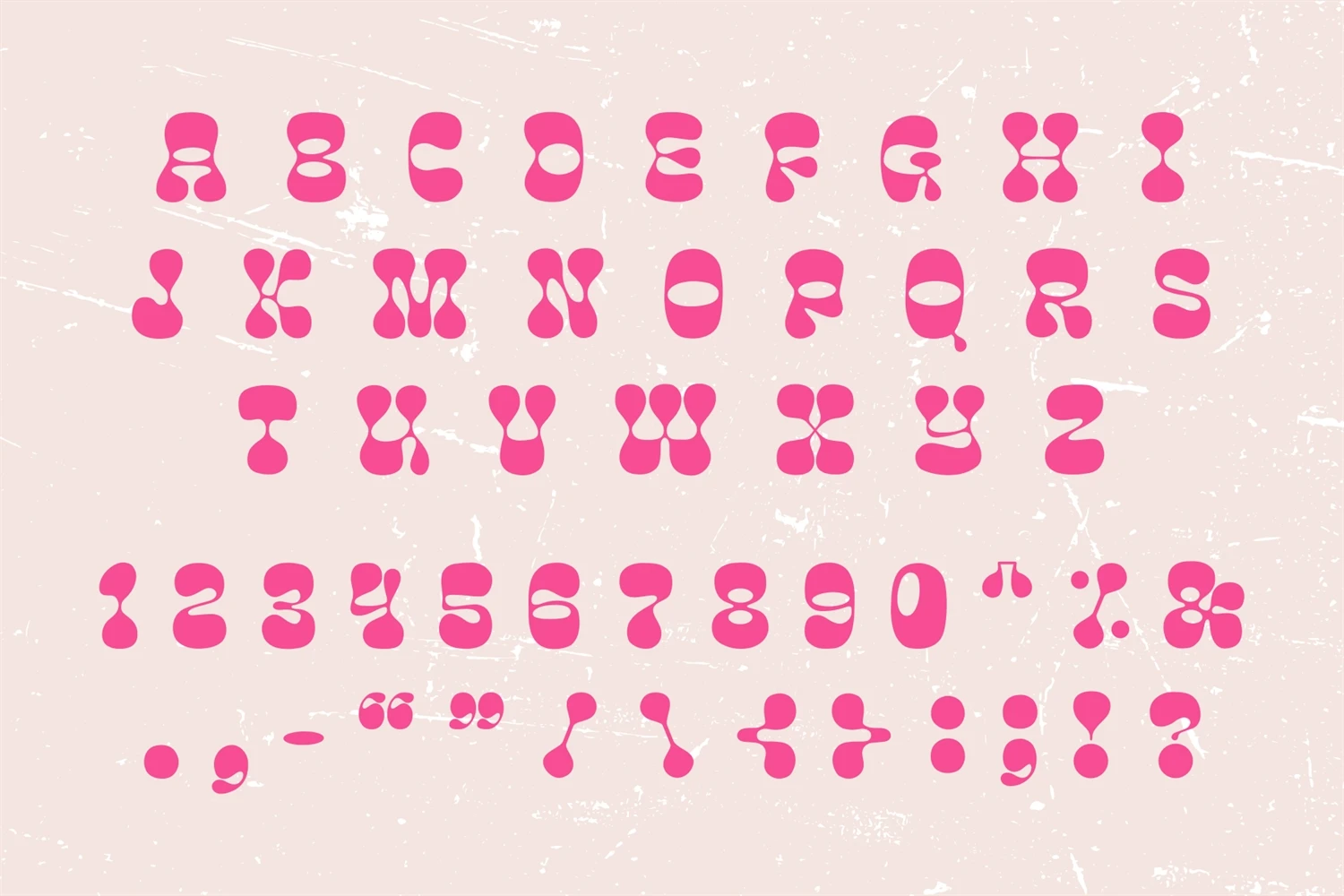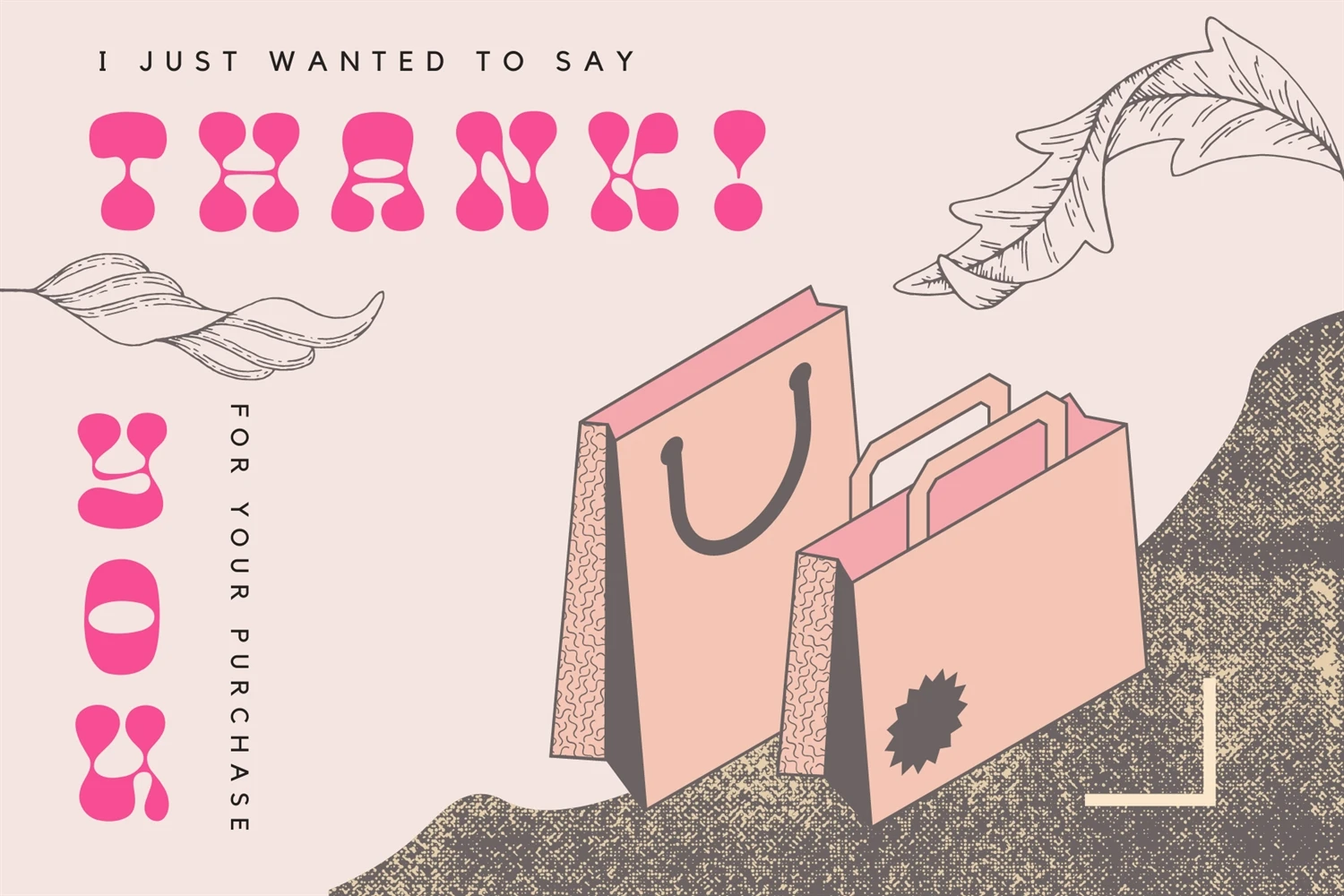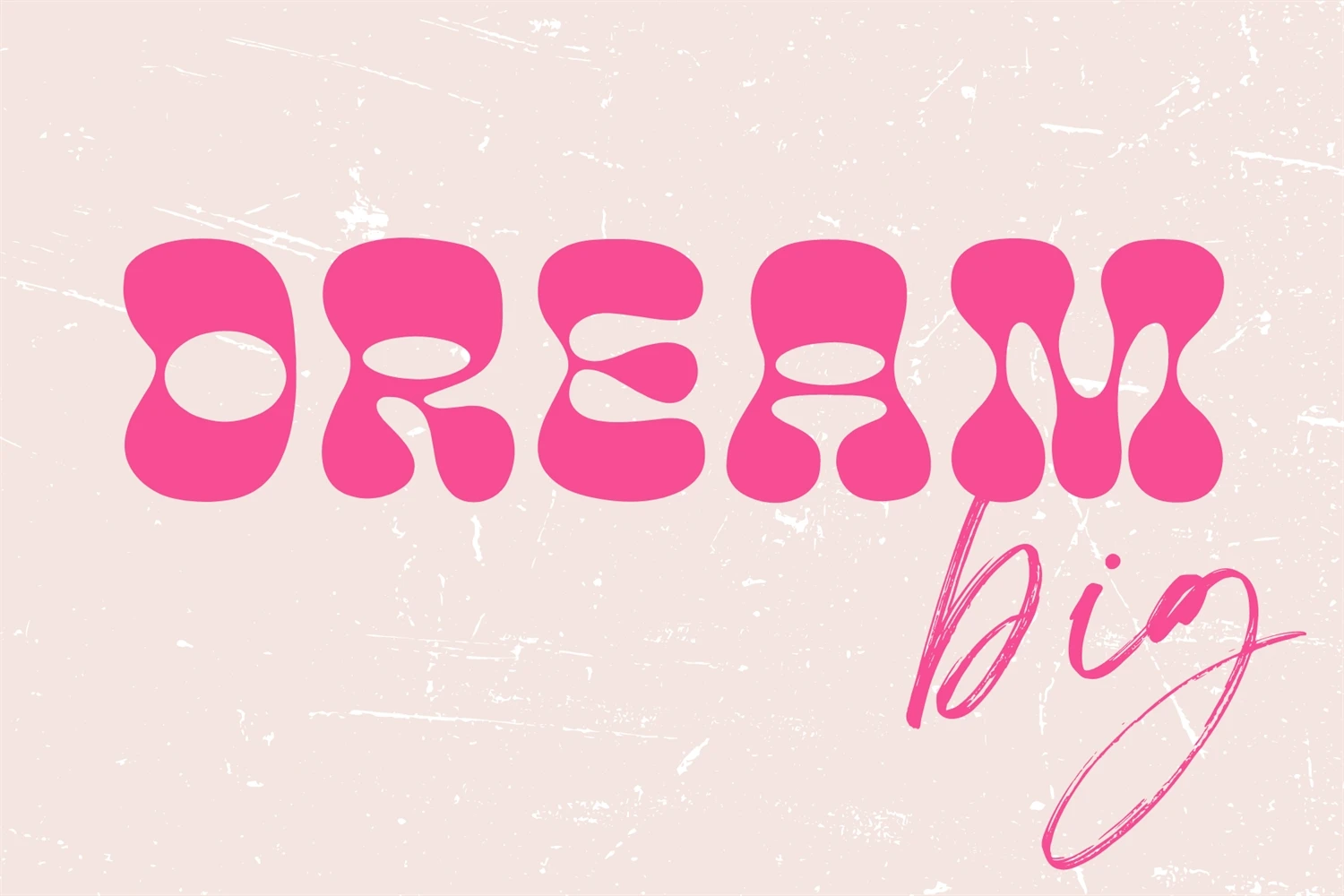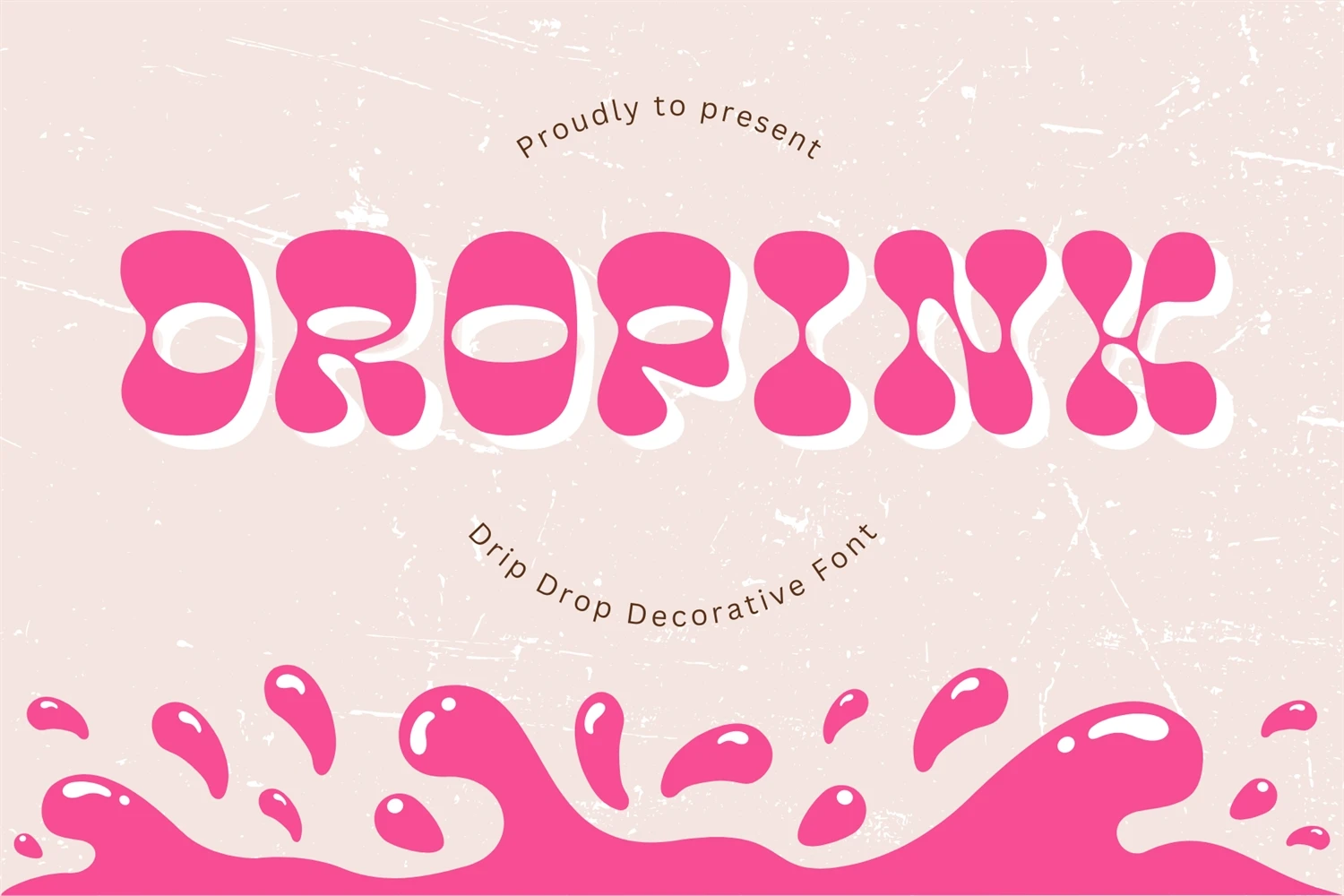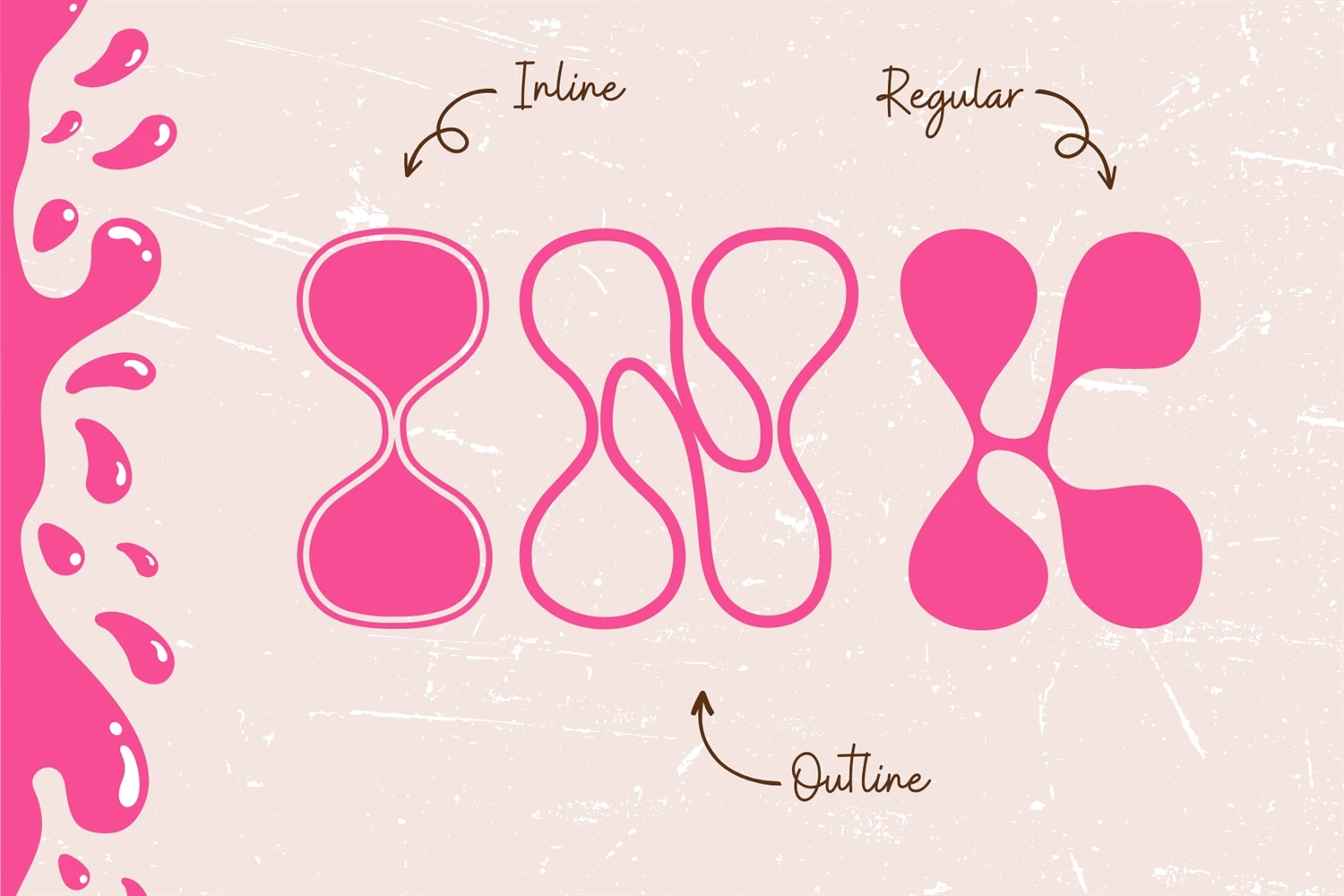
Get ready to add a touch of whimsy to your designs with this droopy and attractive decorative font. Droping's playful and fluid lines evoke a sense of fun and lightheartedness while still maintaining an elegant appeal. Stand out with this unique font and make a lasting impression.